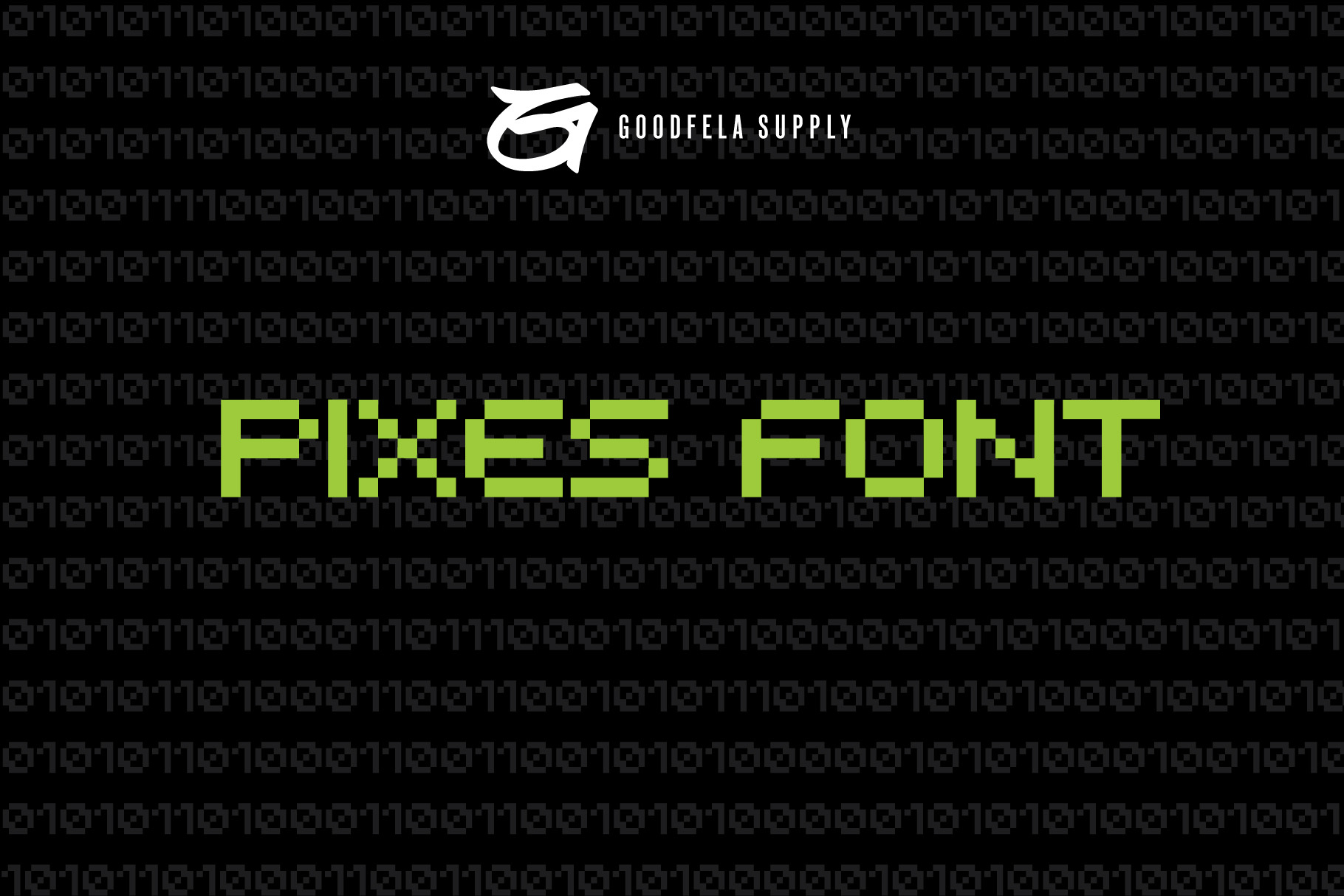
Pixes Font
GOODFELA SUPPLY PIXES REGULAR FONT
Pixes is an ideal pixel art font in applications such as games, posters, stickers and wherever else your creativity allows. Contains Latin accents included and webfont version.